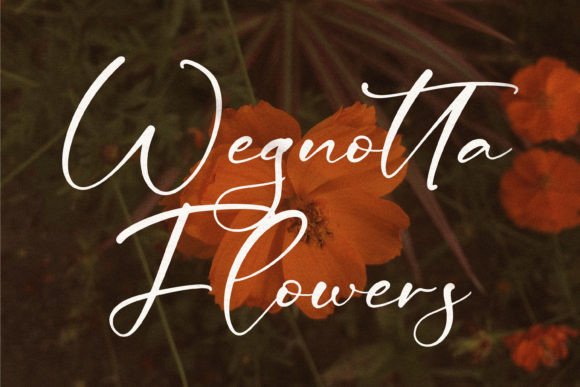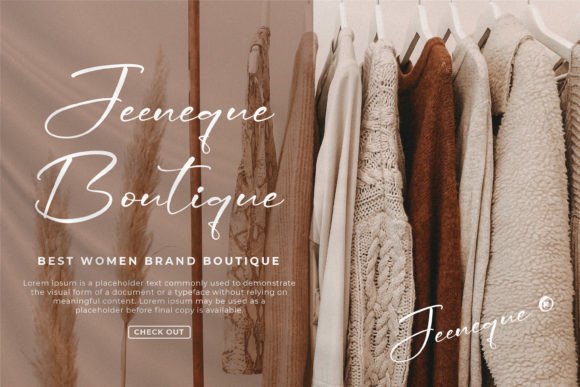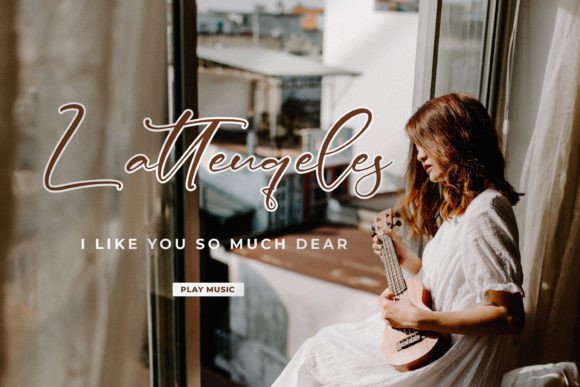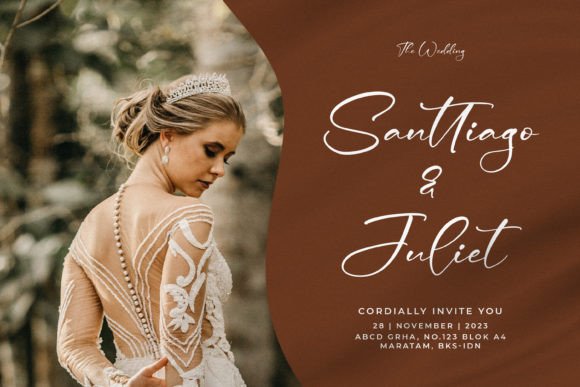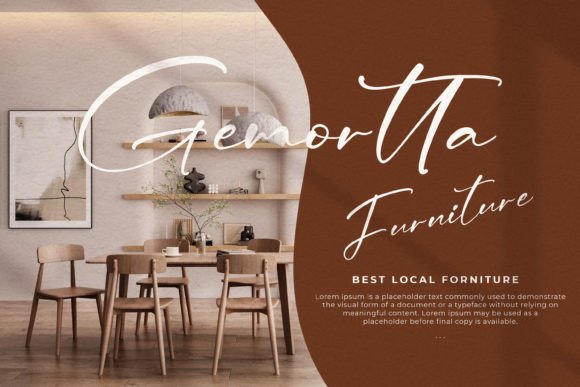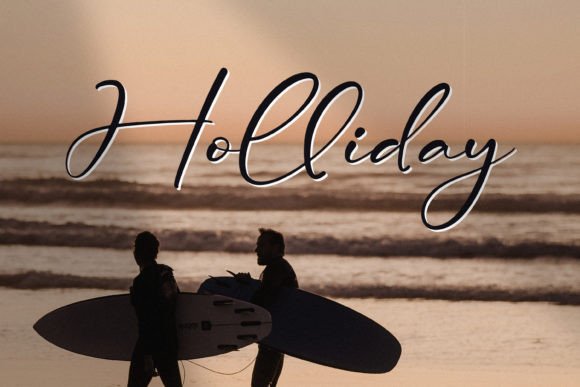
Unleashing Creativity with Ceesenetta Font
Have you ever been stuck in a design rut, searching for the perfect font to elevate your project from good to great? You’re not alone. The quest for the perfect script font can be a long and arduous one, but what if you stumbled upon a gem that would change the game for you?
Ceesenetta – Modern Script Font is a premium Modern Script Font designed to bring a touch of luxury to any project. Whether you’re working on a logo, branding project, or product packaging, this font is sure to impress. With its elegant and sophisticated design, Ceesenetta Font is the perfect addition to any designer’s toolkit, offering endless possibilities for creative expression.
For designers, Ceesenetta Font is a valuable resource that can help take their projects to the next level. Its versatility and premium feel make it an ideal choice for a wide range of applications, from homewares designs to business cards and everything in between.
Ceesenetta Font Key Features
- Font Family: Ceesenetta Font is a unique, hand-drawn script font that offers a personal touch to any design project.
- Size: The font comes in a range of sizes, from 12pt to 120pt, making it suitable for various design applications.
- Resolution: The font is designed to work at high resolutions, up to 300 DPI, ensuring crisp and clear text display.
- Unique Characteristics: Ceesenetta Font features a flowing, handwritten style with subtle imperfections, giving it a distinctive, personal feel.
Ceesenetta Font Review
As a designer, I was excited to dive into the world of Ceesenetta Font. Here’s my honest review.
- Unique style: Ceesenetta Font has a quirky, hand-drawn feel that’s perfect for adding a touch of personality to your designs.
- High-quality vectors: The font is well-designed and comes with high-quality vector files, making it easy to use in a variety of applications.
- Large character set: Ceesenetta Font includes a wide range of characters, including international glyphs and symbols.
- Limited legibility: While the font is visually appealing, its unique style can make it difficult to read in certain contexts, such as body text.
- Not ideal for small text: The font’s irregular shapes and lines can make it challenging to read in small sizes, which may limit its use in certain applications.
Ceesenetta Font is a great choice for designers who want to add a touch of whimsy and personality to their projects. While it may have some limitations, its unique style and high-quality vectors make it a valuable addition to any design toolkit.
For best results, use Ceesenetta Font for headings and titles to create a visually appealing design.
Use Ceesenetta Font to create unique and eye-catching titles, headings, and text overlays.
Use Ceesenetta Font to add a touch of elegance and sophistication to your presentations and documents.
For best results, use Ceesenetta Font for:
- Brand logos and typography
- Formal presentations and documents
Experiment with different font sizes, colors, and combinations to find the perfect look for your project.
The Alex Brush Font is a beautiful, handwritten script font that exudes a sense of warmth and personality. It’s perfect for use in creative, artistic, and emotional designs, such as children’s books, greeting cards, and social media graphics. Compared to Ceesenetta Font, Alex Brush Font is more casual and expressive, making it suitable for creative and playful designs.
Q: What is the recommended font size and resolution for optimal display of Ceesenetta Font?
For optimal display, we recommend using a font size between 12 and 24 points, depending on the specific design requirements. As for resolution, a minimum of 300 DPI (dots per inch) is recommended for print materials, while 72 DPI is suitable for digital applications.